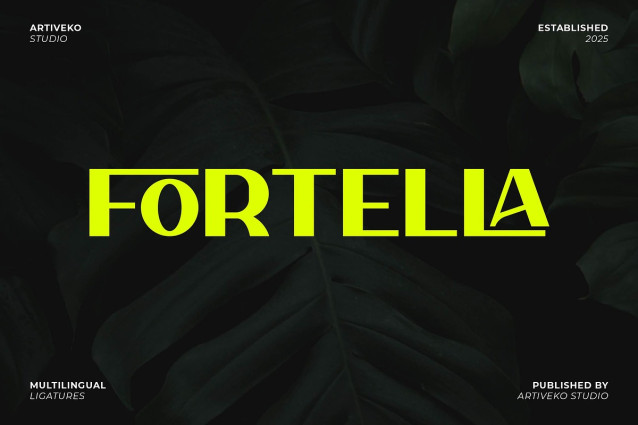
Fortella Font
Fortella Font is a modern sans serif font crafted with precision and clarity in mind. Featuring clean lines, balanced spacing, and a contemporary structure, Fortella is perfect for branding, editorial layouts, websites, packaging, and corporate identity systems.
This fonts are great for product logo,wedding card logo, clothing brand logo, Vintage design and much more.